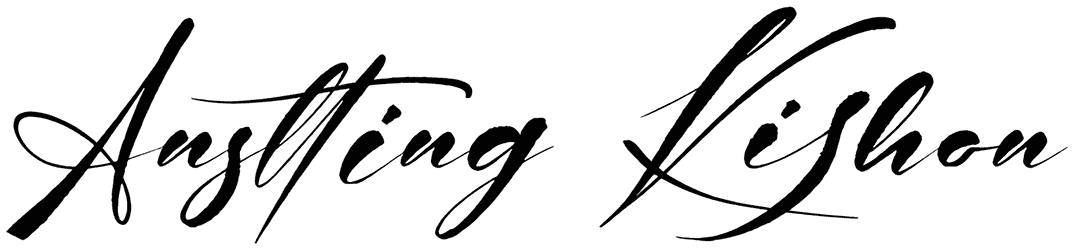
Anstting Kishon Font
To exhibit the essence of your work, you need to use the right calligraphy font. With that, we offer you Anstting Kishon an incredible font that comes in handy when it’s a matter of sharing your friendly and playful vibes with the readers.
No matter what the project is, this poetry font, with a complete collection of all the characters, supports you to overcome it. There are a lot more where this came from that you can get your hands on.